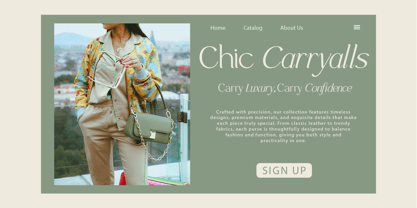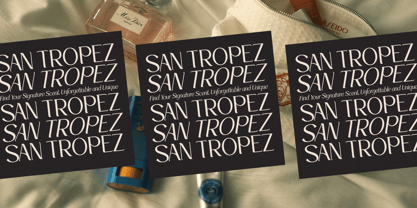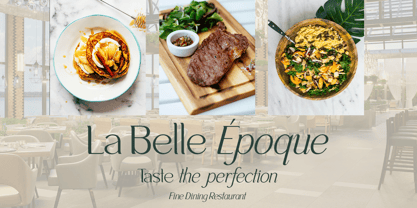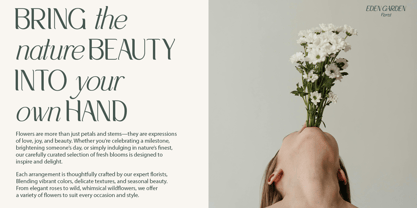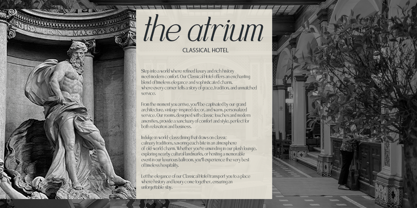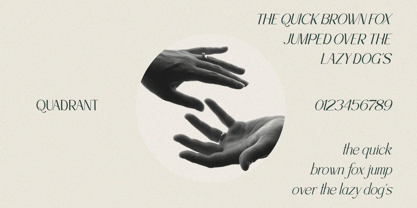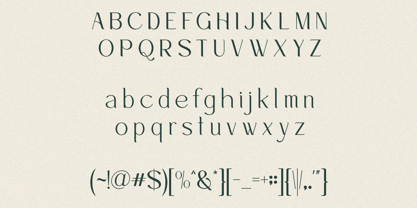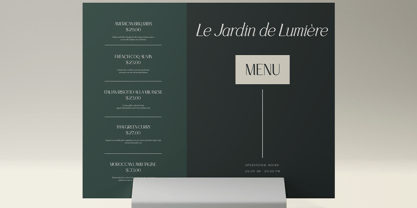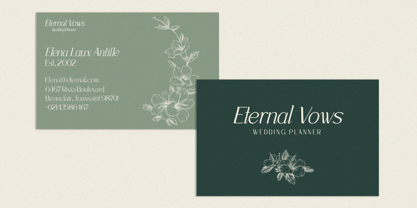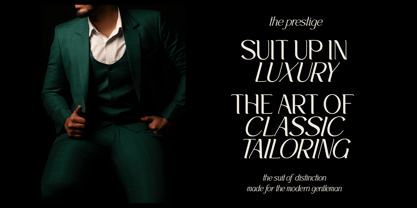
Quadrant
por RagamKata
La familia tipográfica Quadrant fue diseñada por Yogiswhara Dio Prakoso Riadi y publicada por RagamKata. Quadrant contiene 2 estilos y opciones de paquete familiar. Más información sobre esta familia
Quadrant - Clean Sans Font
Quadrant is clean sans font beautiful regular and italic style. Designed to use in harmony, the stark contrast of the bold & voluptuous uppercase of the regular serif, balances beautifully with the sleek and sultry lowercase of its Italic counterpart.perfectly suitable for creating simple, clean, lifestyle design such as logos, title, and magazine and more.